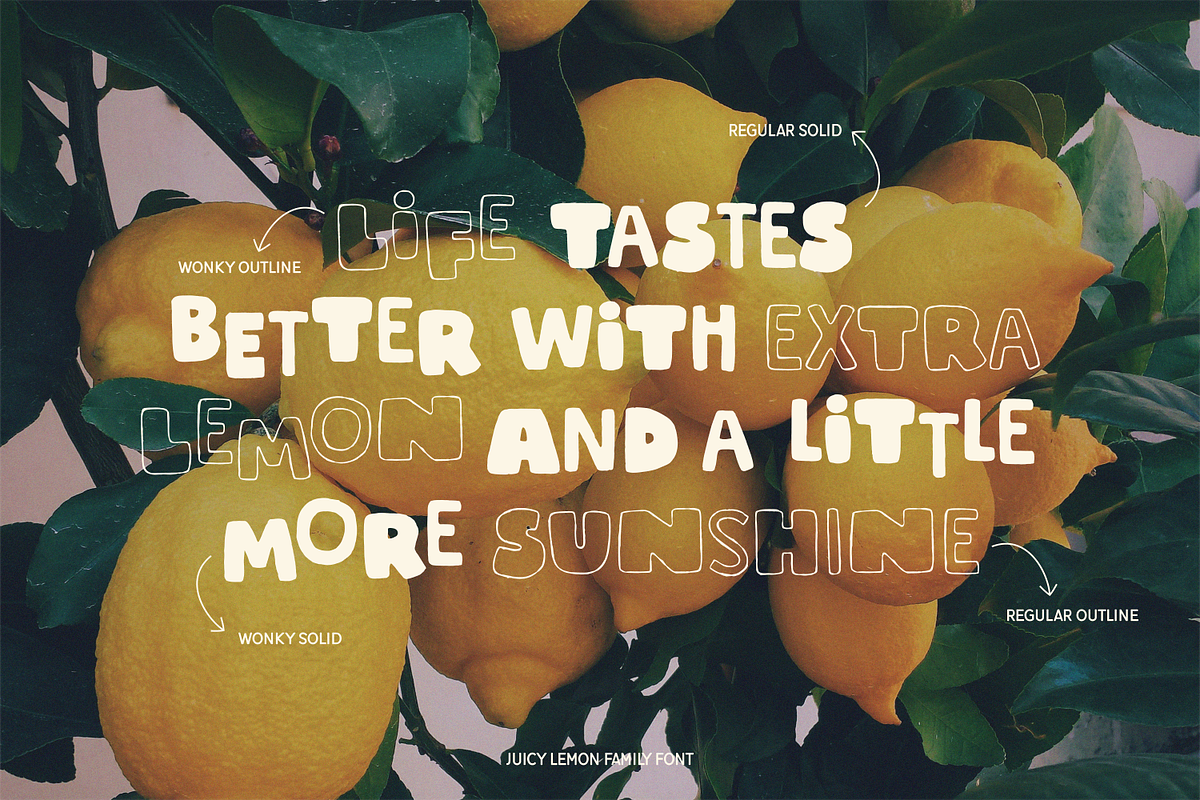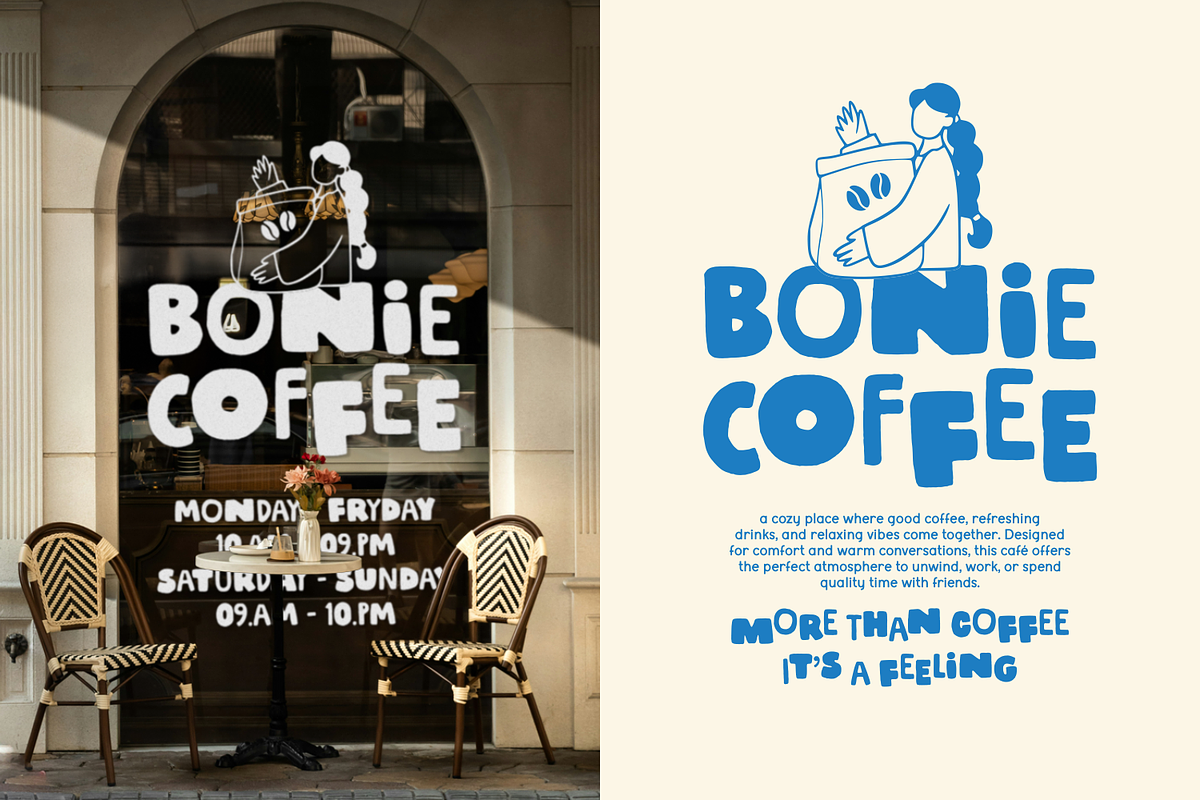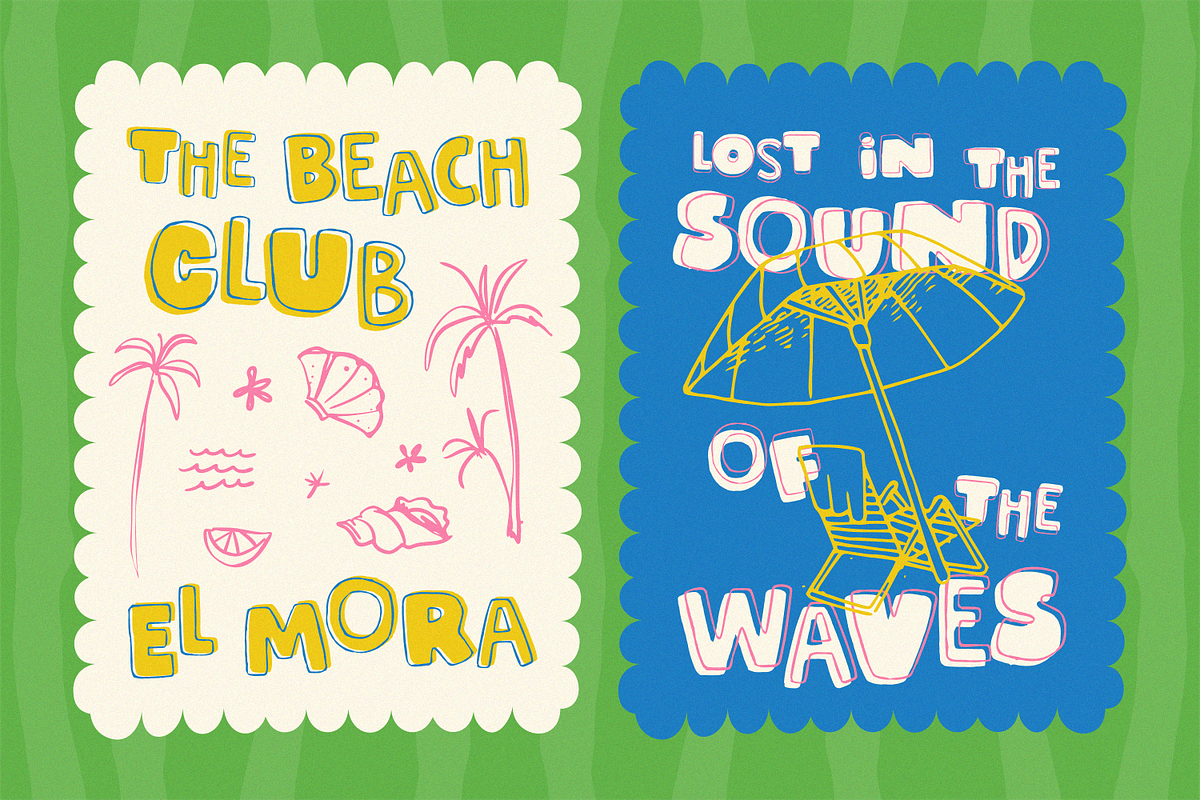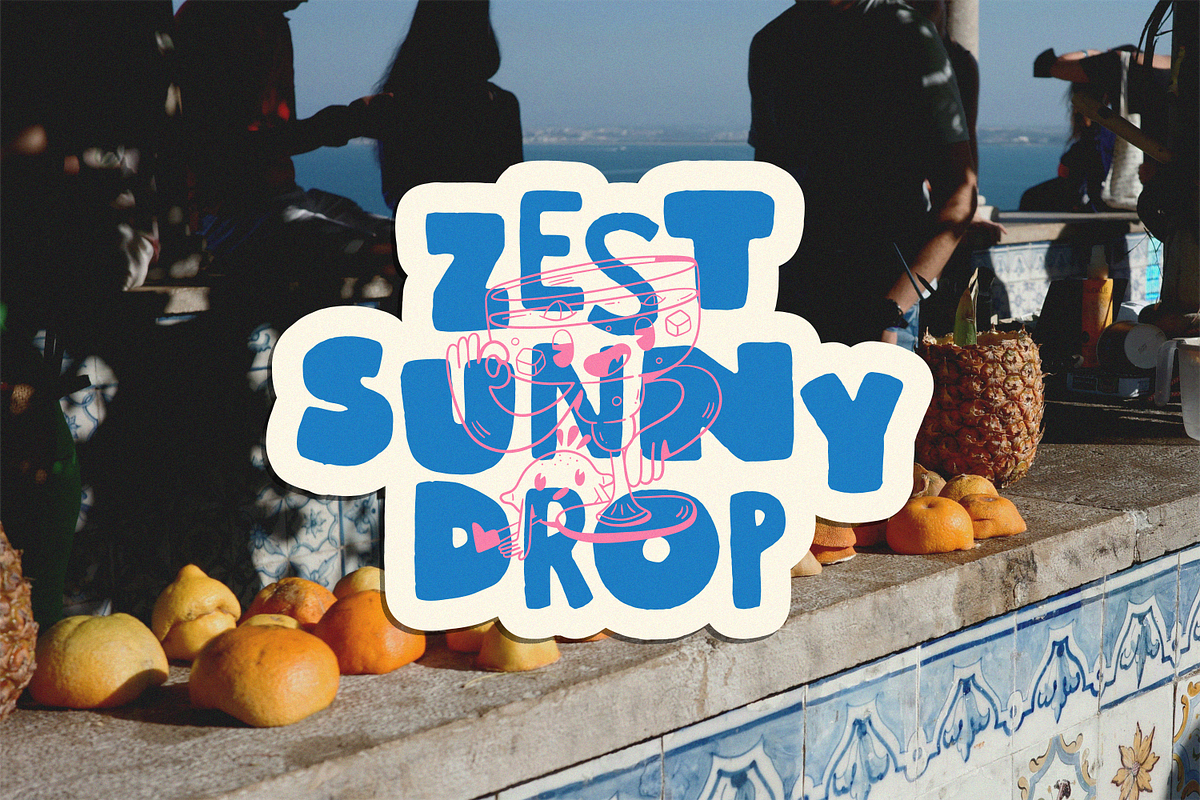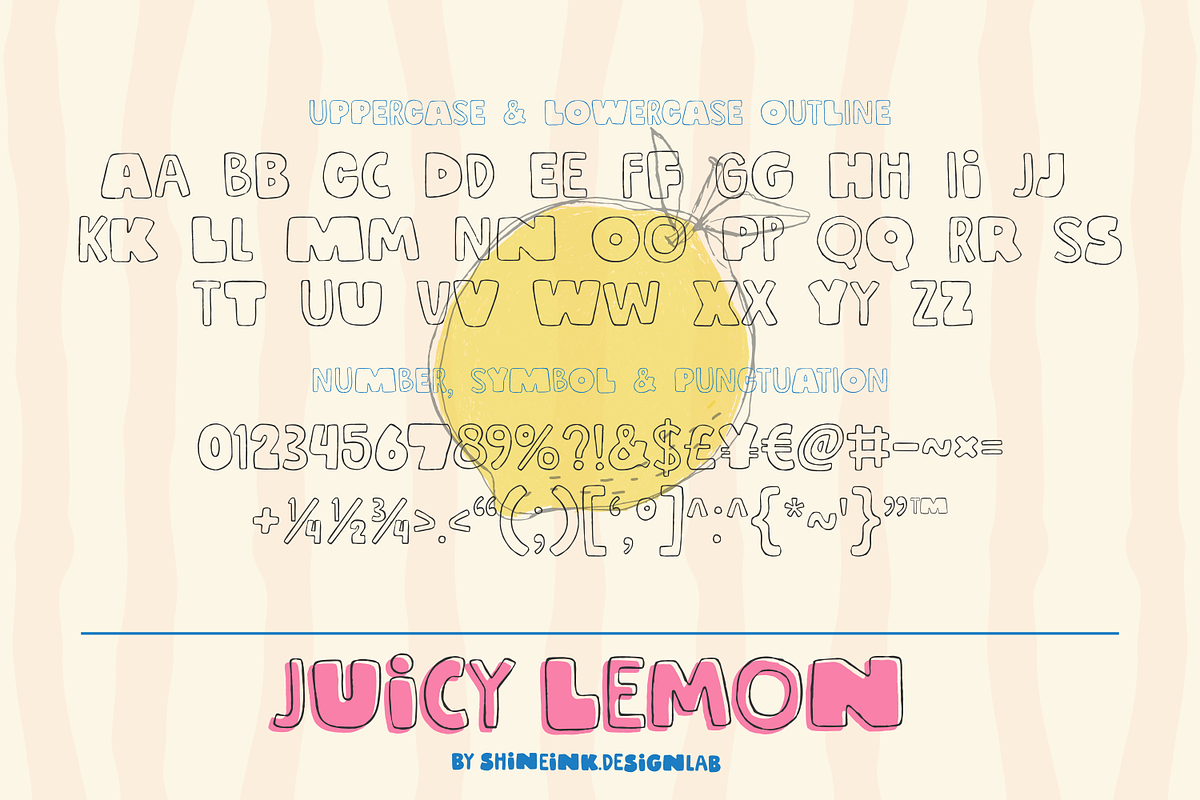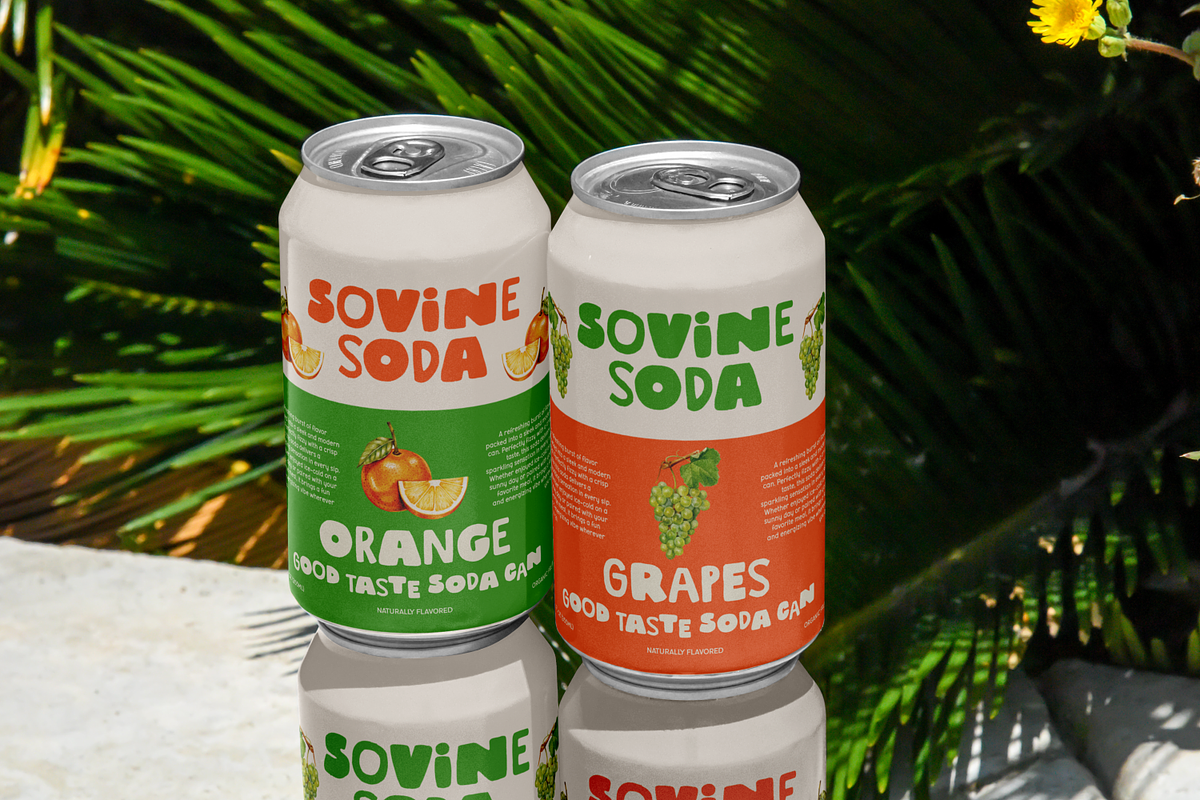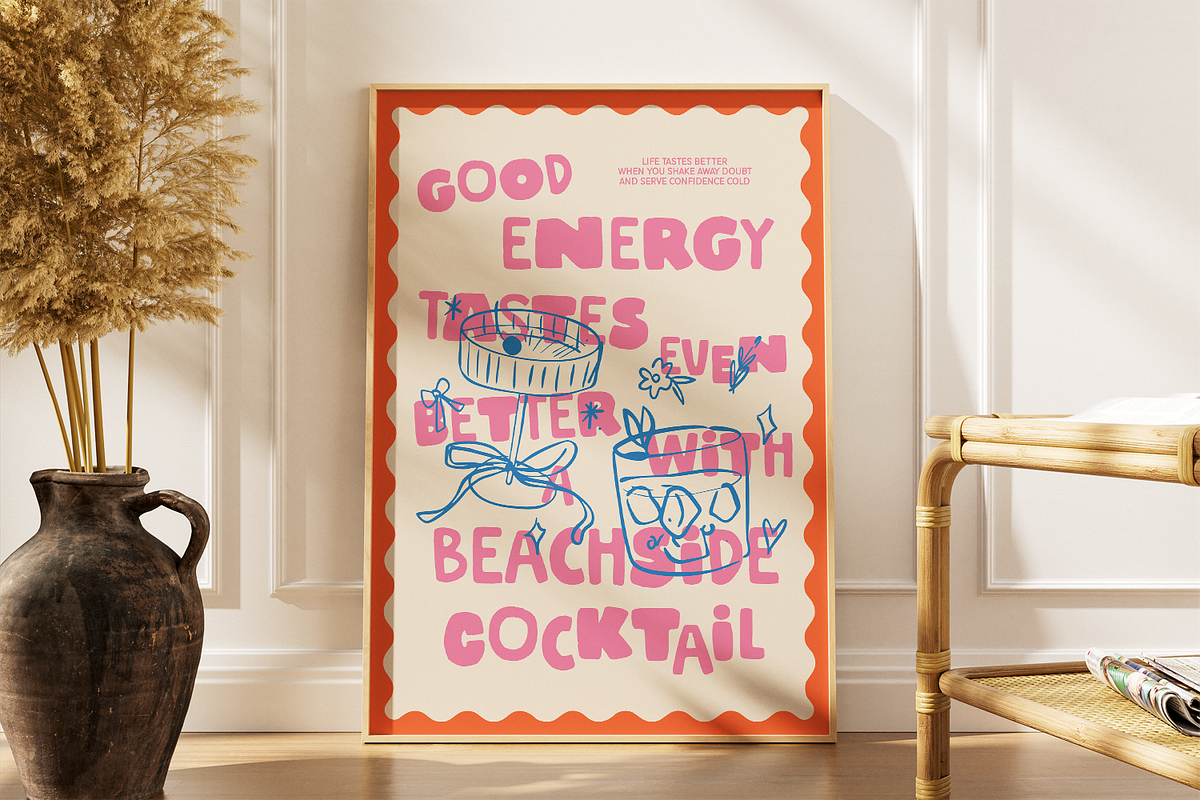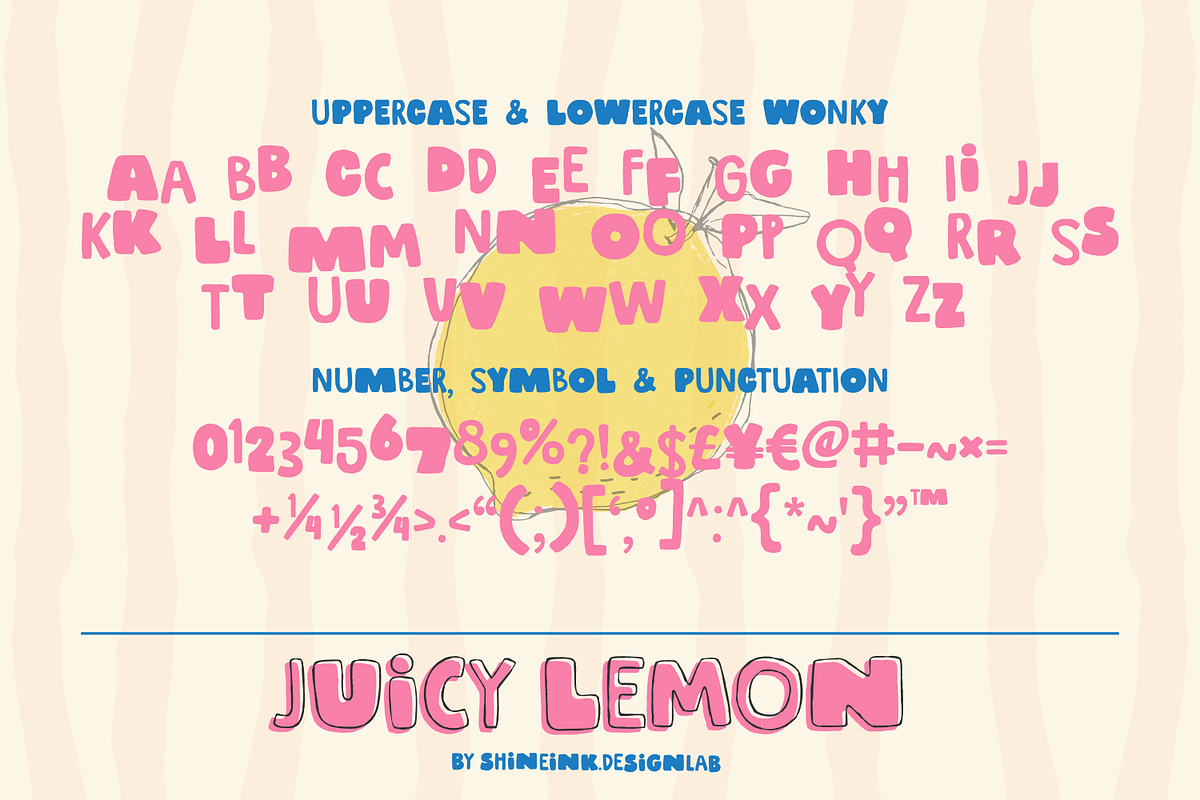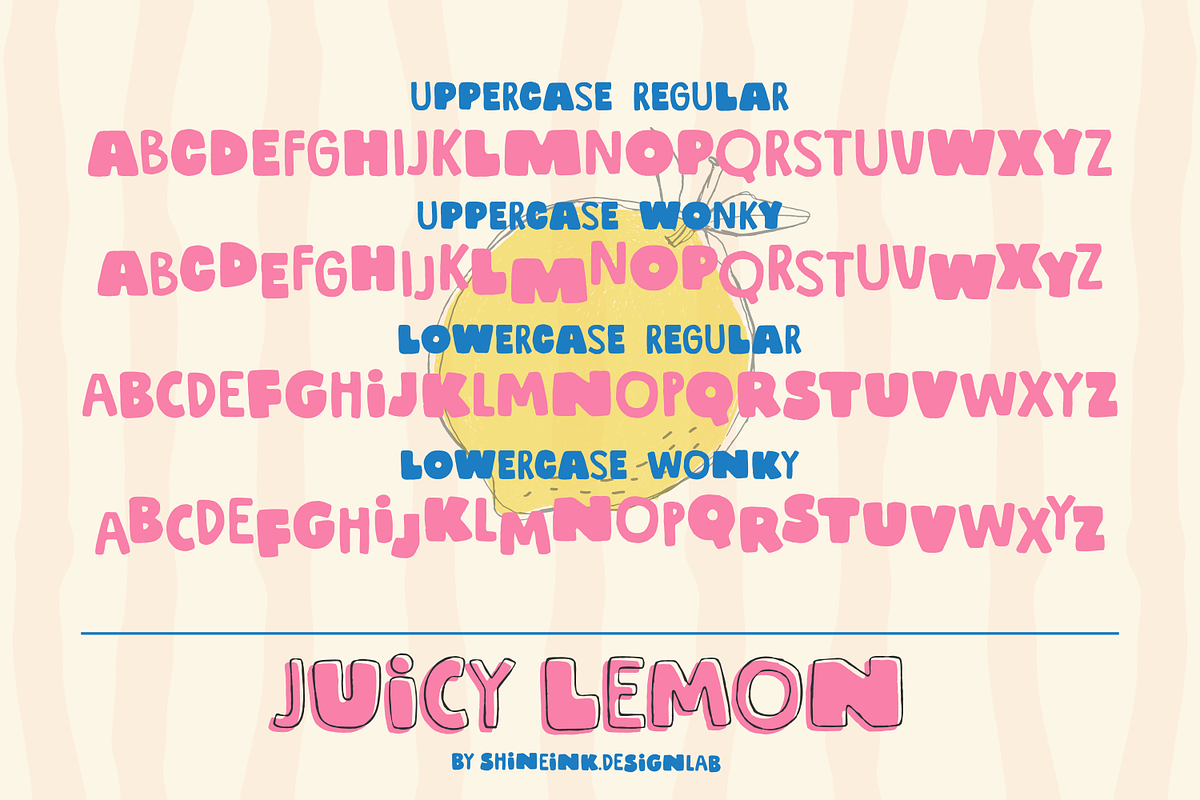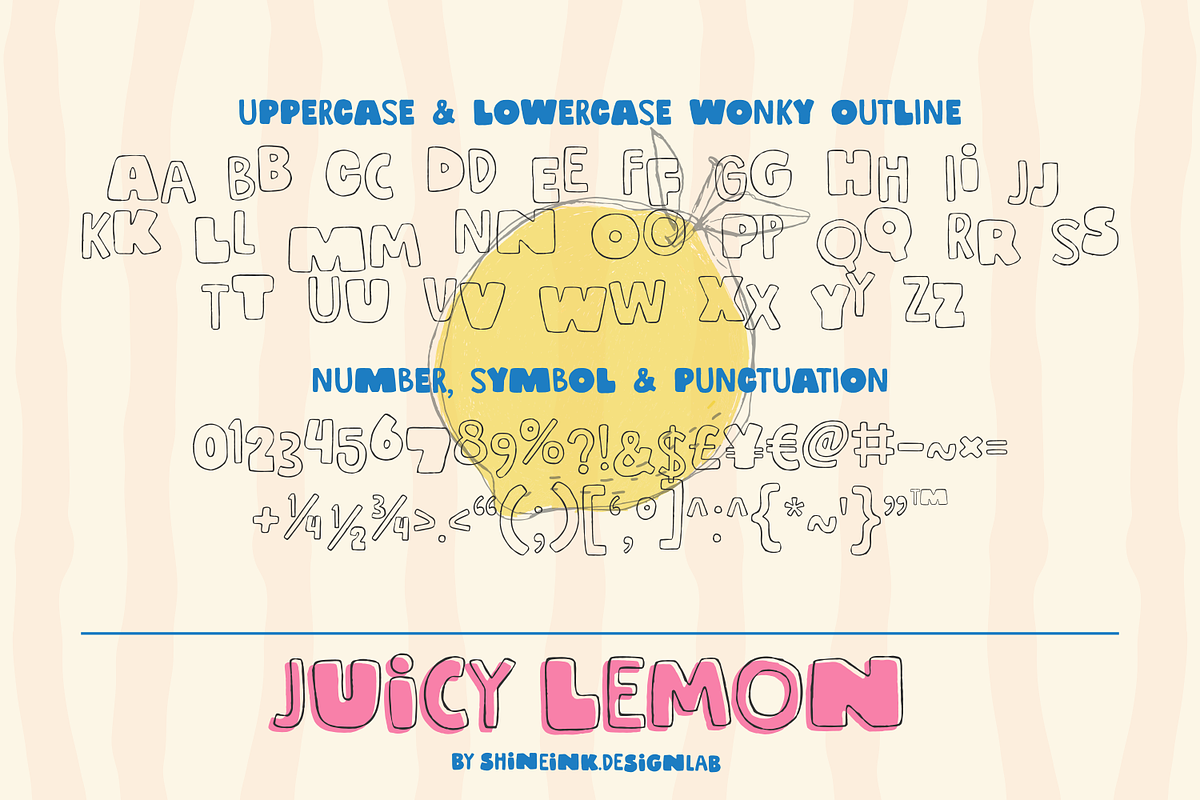
Juicy Lemon - Quirky Wonky Font
I'm present to you, a quirky wonky display font called Juicy Lemon!
Juicy Lemon a bold, playful display font packed with quirky curves, imperfect shapes, and hand-drawn energy. Designed to look intentionally messy yet irresistibly charming, this typeface brings a fresh and expressive personality into every project.
With its chunky forms, uneven rhythm, and handcrafted feel, Juicy Lemon is perfect for creatives who want typography that feels fun, human, and impossible to ignore.
Whether you're designing vibrant packaging, eye-catching posters, playful branding, or social content that needs extra personality, Juicy Lemon delivers a juicy punch of character.
1. Lowercase and Uppercase
2. Numerals & Punctuation
3. Accented characters
4. Multiple Languages Supported
5. 4 Style Font : REGULAR, OUTLINE, WONKY, WONKY OUTLINE